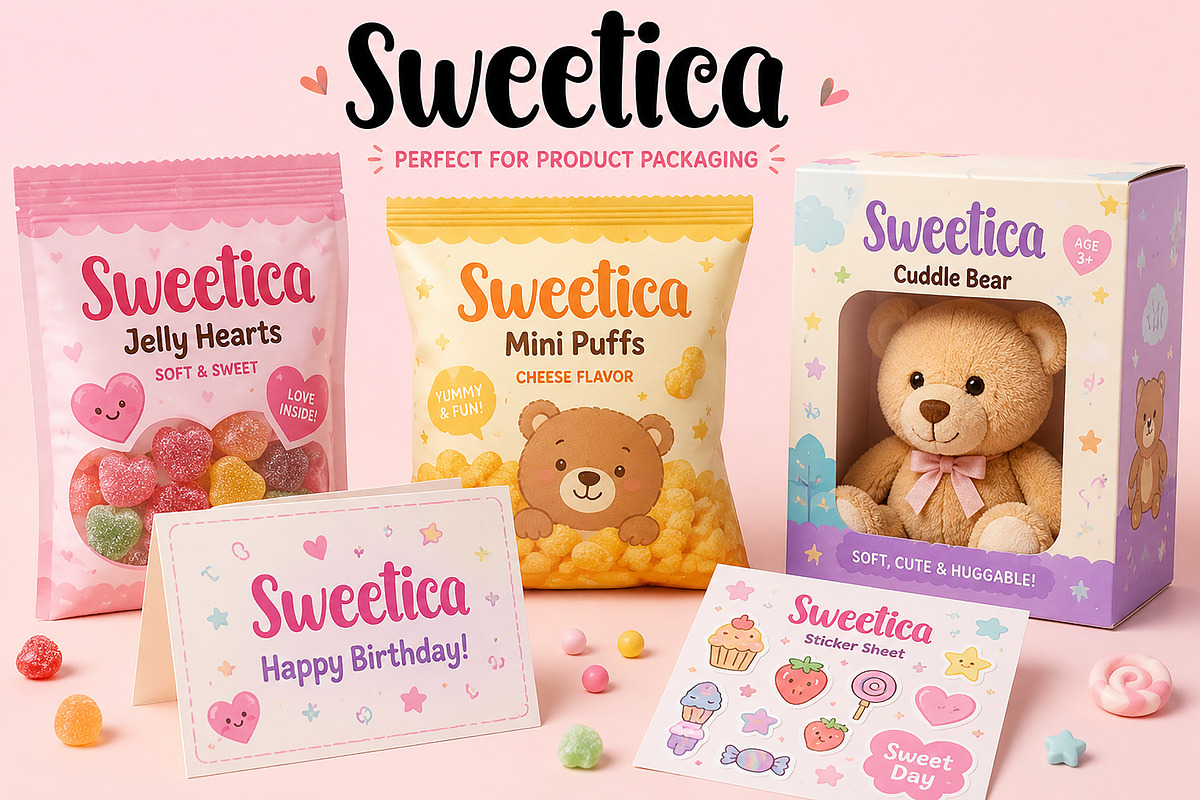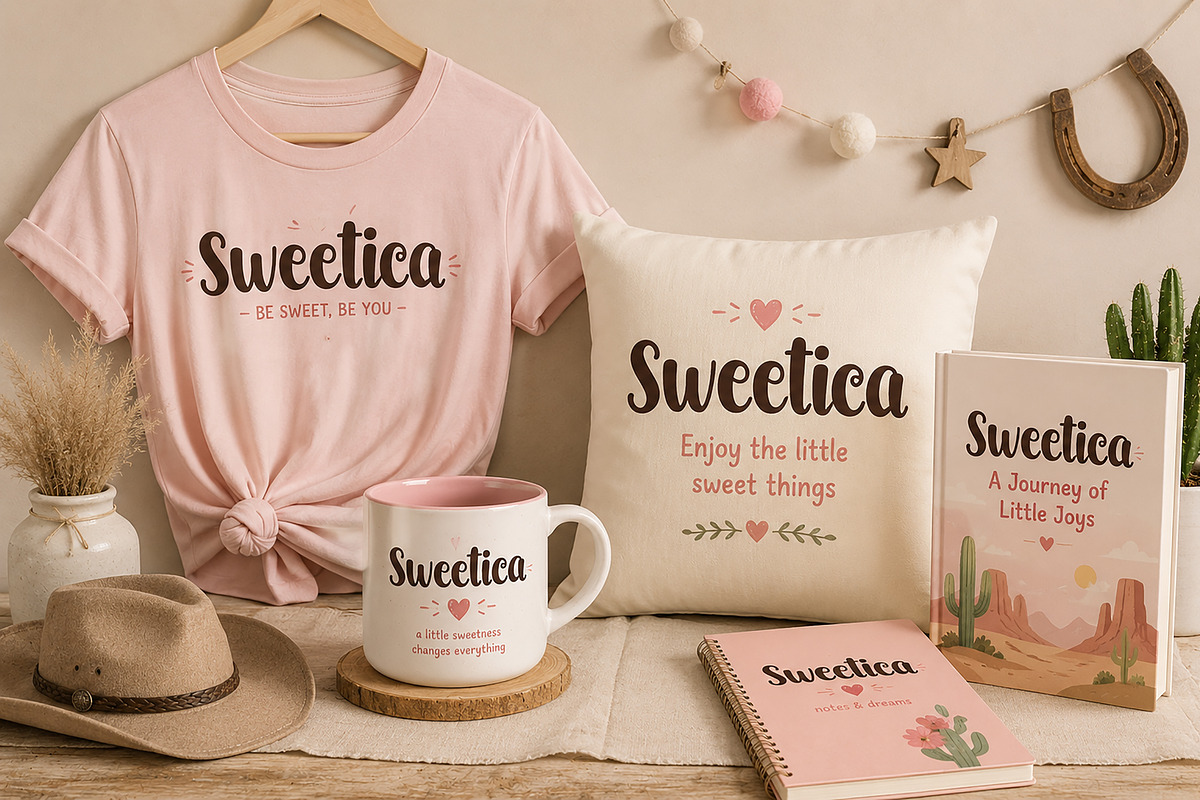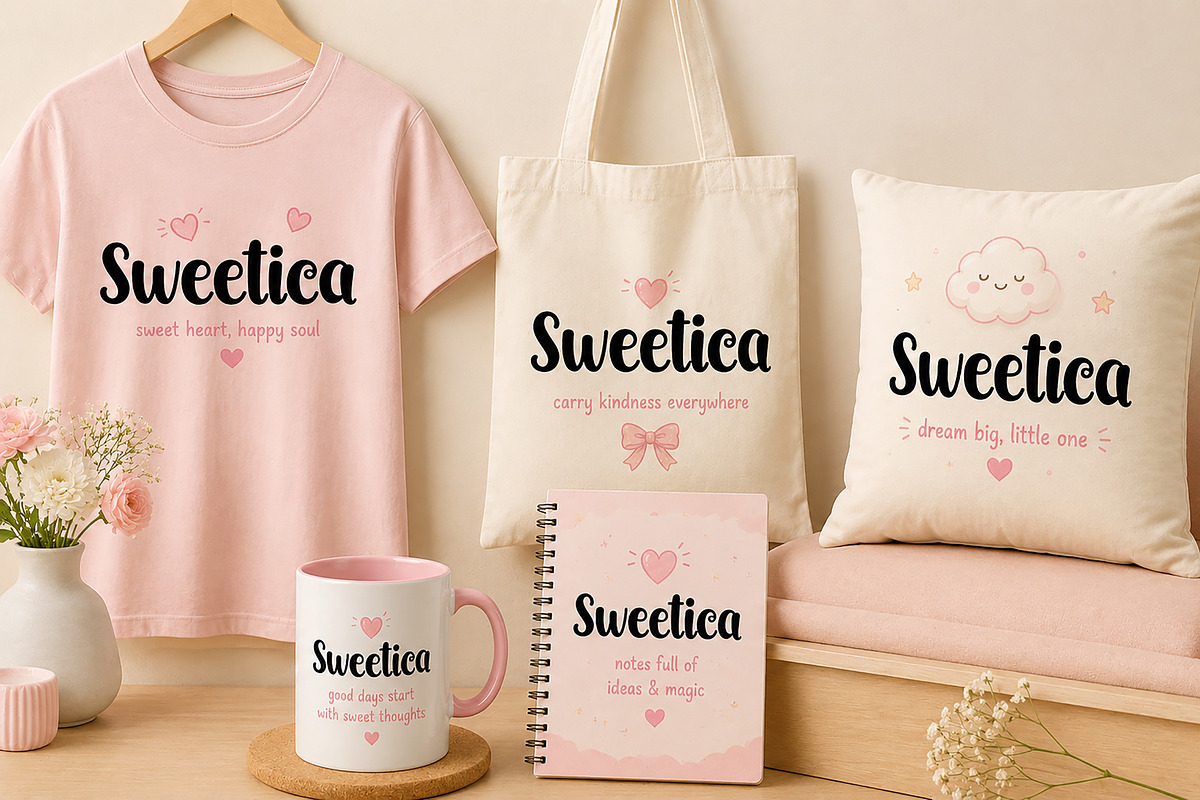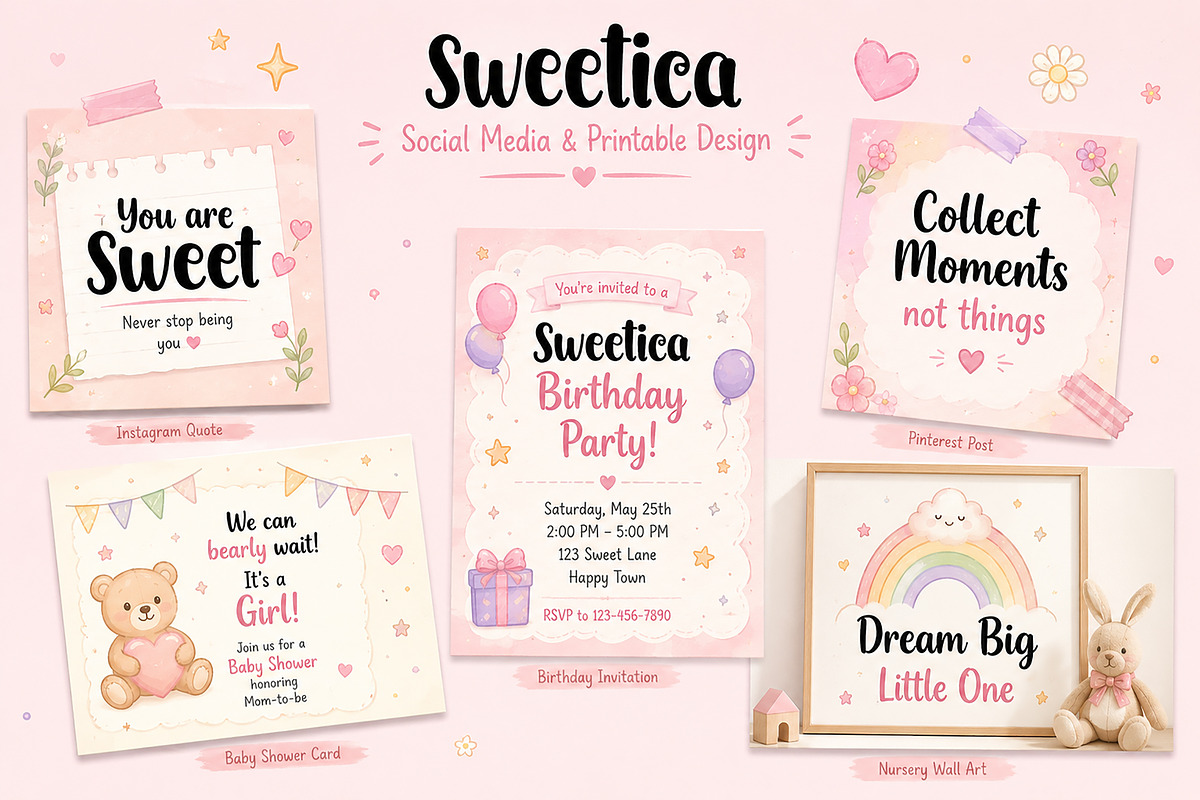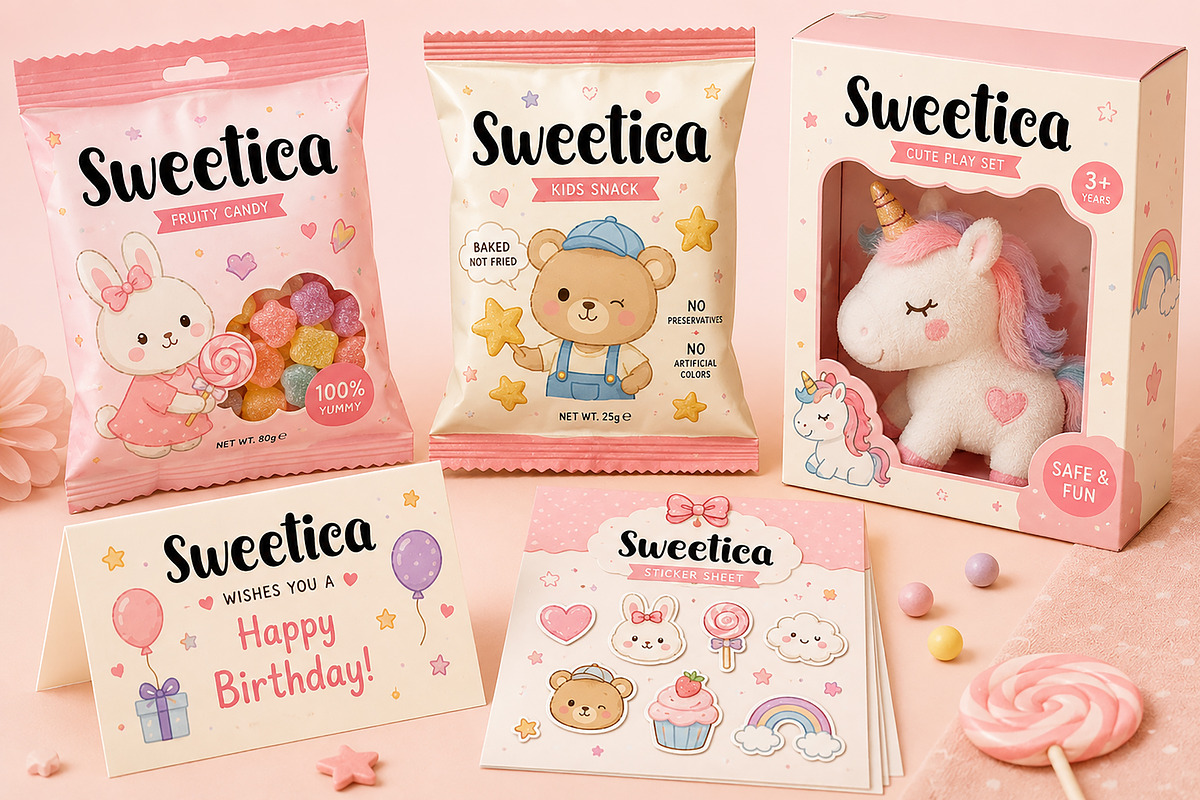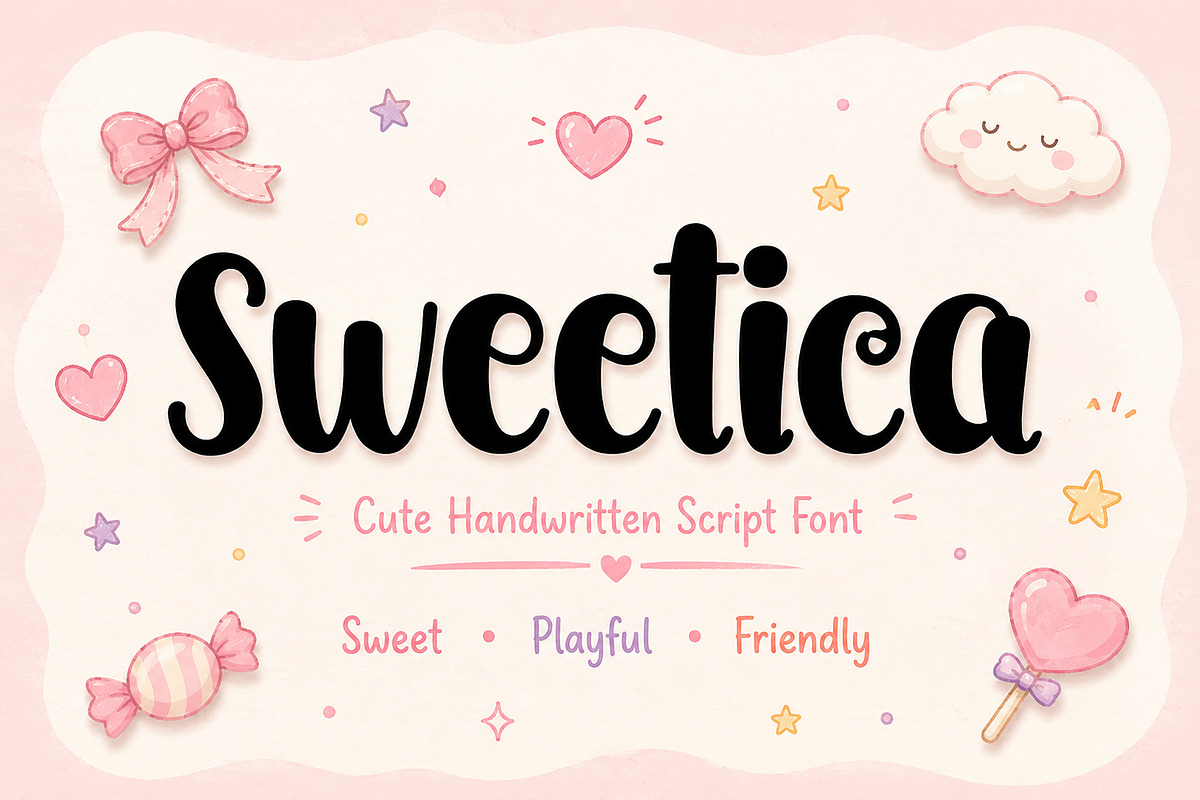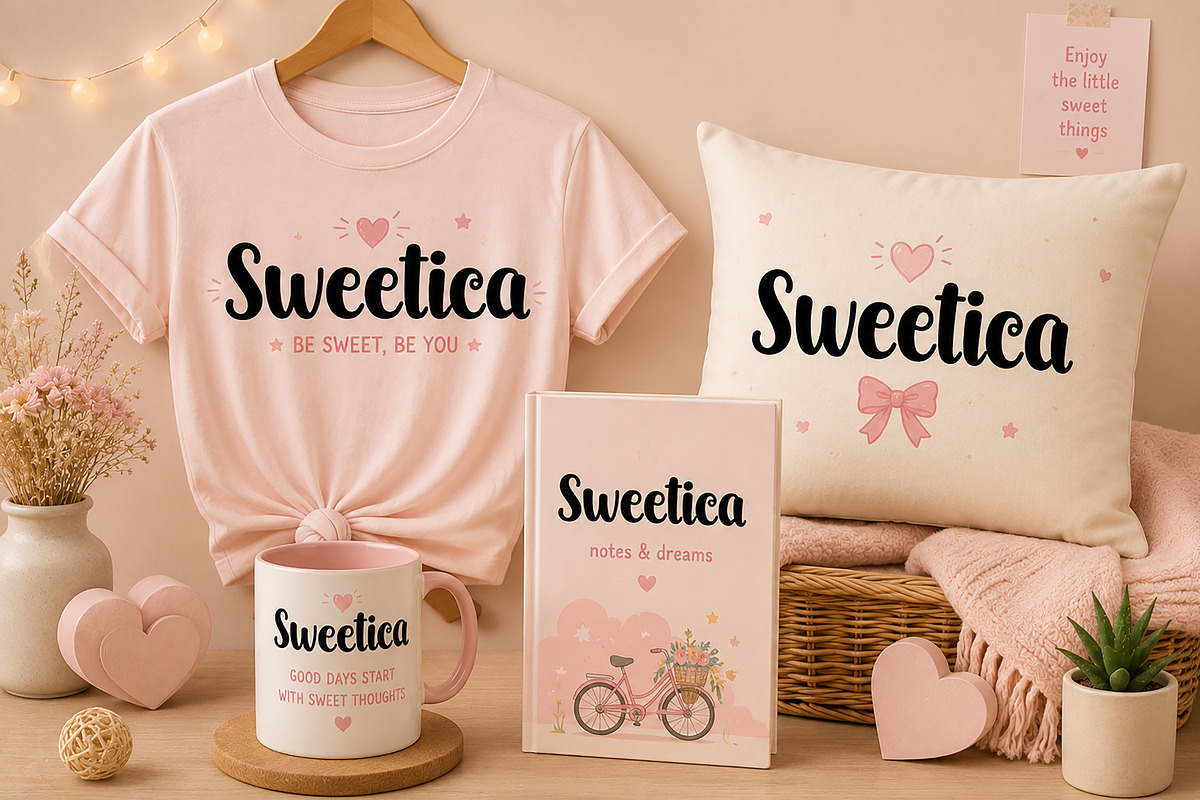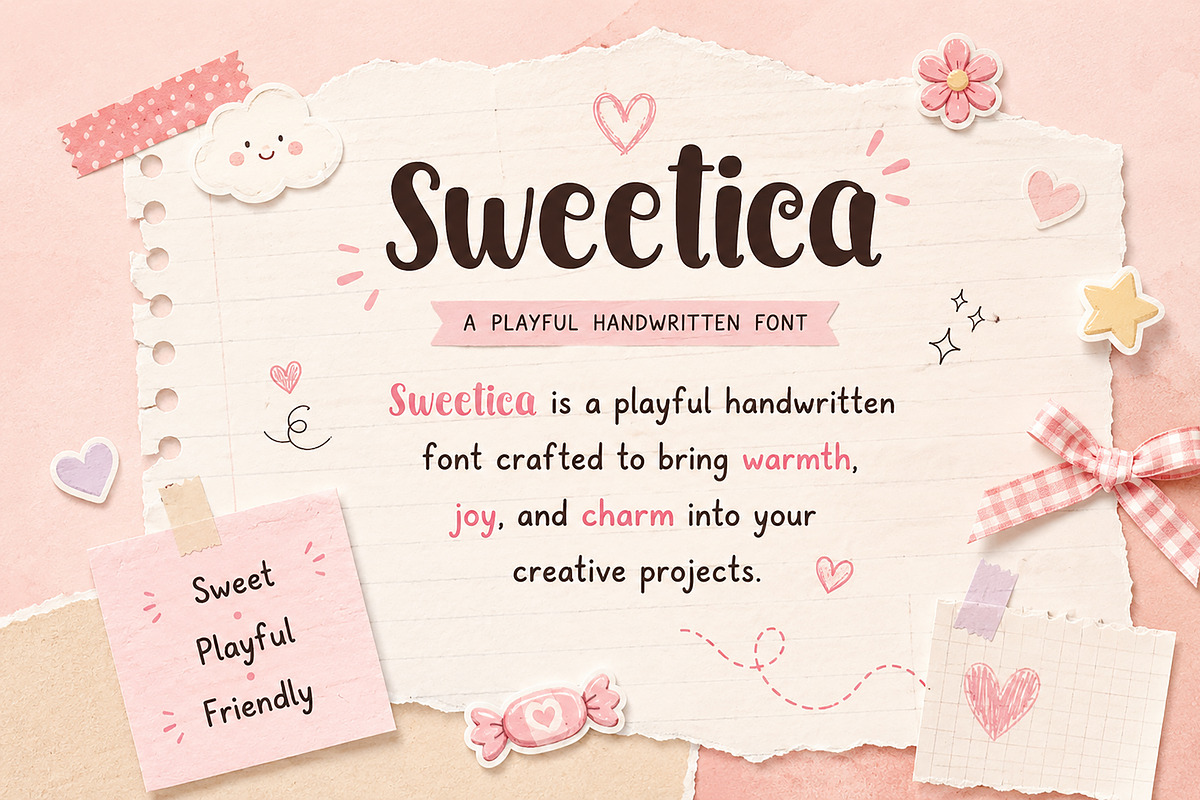
Sweetica
Sweetica – Cute Playful Handwritten Script Font
Sweetica is a cute and playful handwritten script font designed to add warmth, sweetness, and charm to your creative projects. With its soft curves, smooth flow, and friendly personality, this font is perfect for branding, packaging, social media, invitations, kids-themed designs, and more.
Whether you're creating adorable product packaging, greeting cards, nursery prints, or fun merchandise, Sweetica brings a lovely handmade touch that feels warm, cheerful, and authentic.
Introducing Sweetica
Sweetica is a charming handwritten script font crafted with a playful and friendly style. Designed to feel natural, soft, and joyful, this font is perfect for creatives who want to bring a sweet handmade personality into their designs.
Its rounded letterforms and smooth handwritten flow make it highly versatile for both personal and commercial projects. Sweetica works beautifully across branding, packaging, printable products, and social media content.
• Product Packaging
• Kids Branding
• Candy Labels
• Greeting Cards
• Birthday Invitations
• Baby Shower Designs
• Nursery Wall Art
• Social Media Templates
• T-shirt Designs
• Mug Designs
• Tote Bags
• Notebook Covers
• Stickers
• Printable Quotes
• Pinterest Templates
• Instagram Posts
• DIY Projects
• Cricut Projects
Bring sweetness, playfulness, and creativity into your designs with Sweetica.